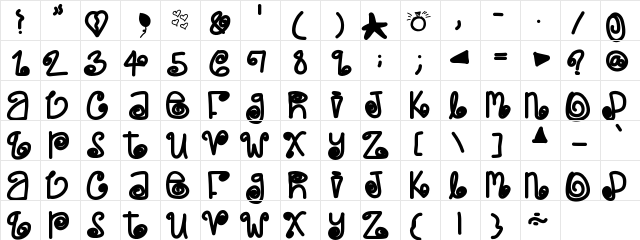
PoeticJustice Medium Font Preview
PoeticJustice Medium
PoeticJustice Medium Font Details
Design Context for PoeticJustice Typeface
PoeticJustice is a composed and adaptable typeface that performs quietly and consistently across a wide range of design contexts.